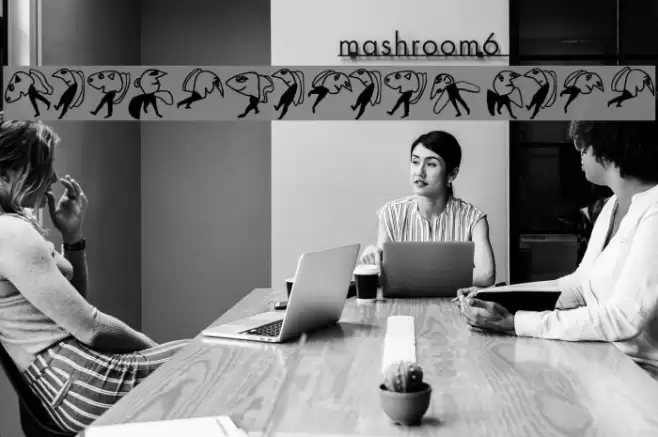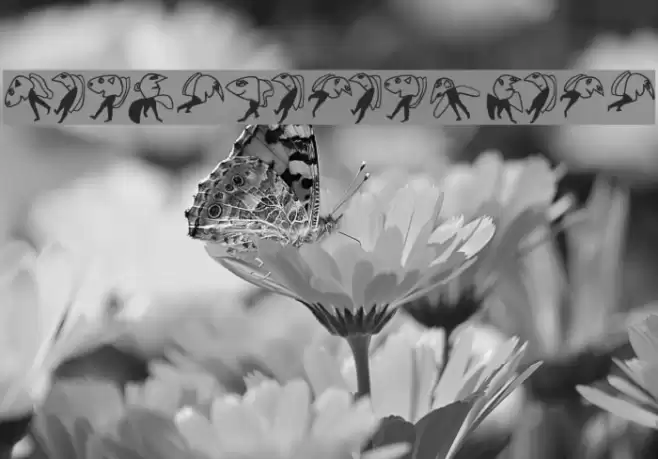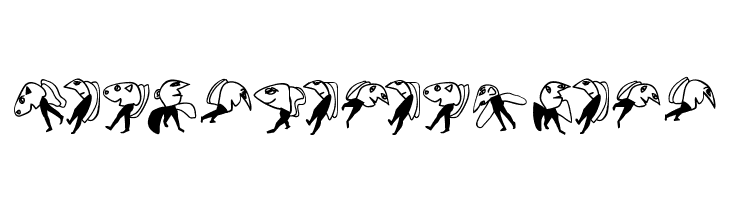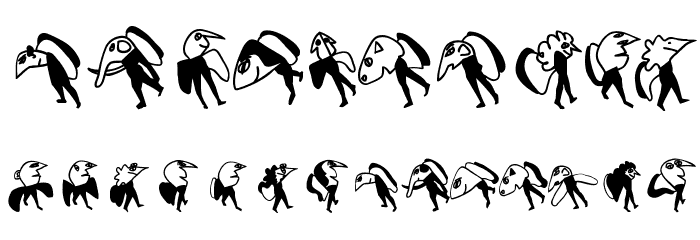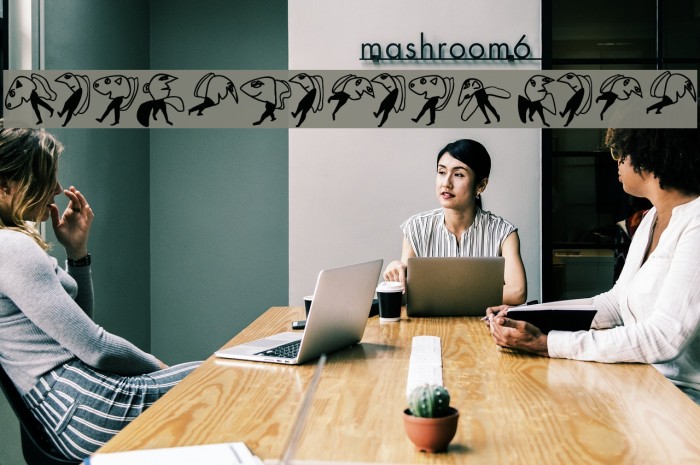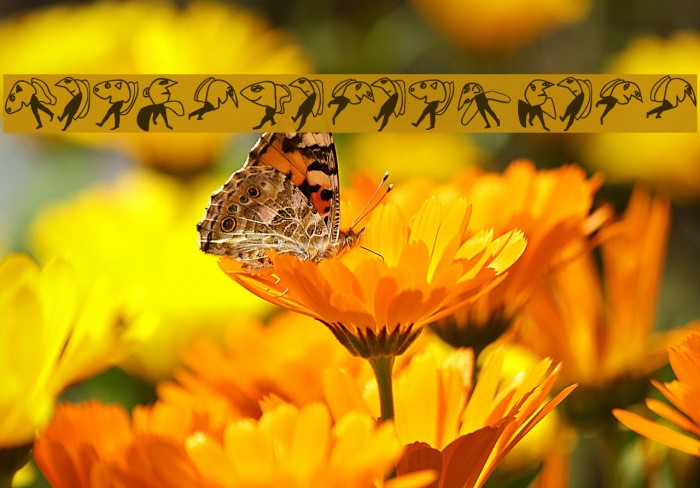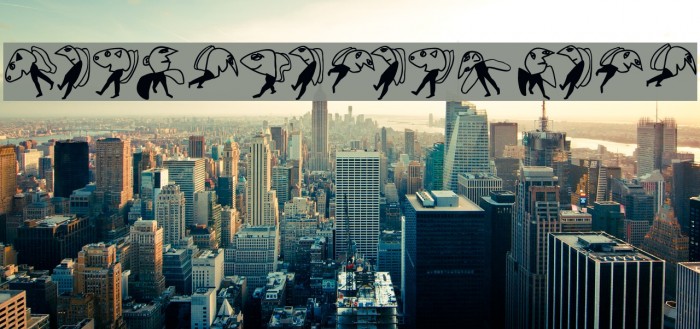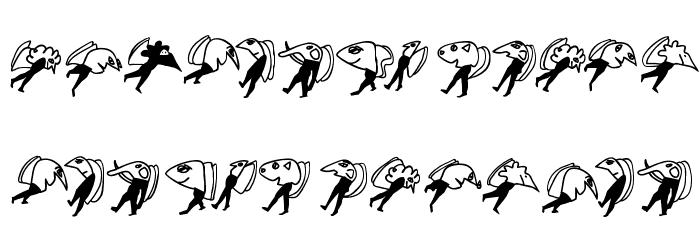
LosAngeles-Bold Font
LosAngeles-Bold Description
Highly decorative and illustrative font where each character is represented by a unique, abstract figure resembling a person with a large, expressive head, creating a playful and artistic visual effect.
Whimsical, character-based illustrative font with abstract human-like figures from Uncategorized fonts.
- Proposed Projects: Children’s books, art posters, creative branding, album covers, event invitations.
- Overall Style: Decorative, Playful, Artistic
- Use Case: Logos, Headlines, Posters, Artistic projects